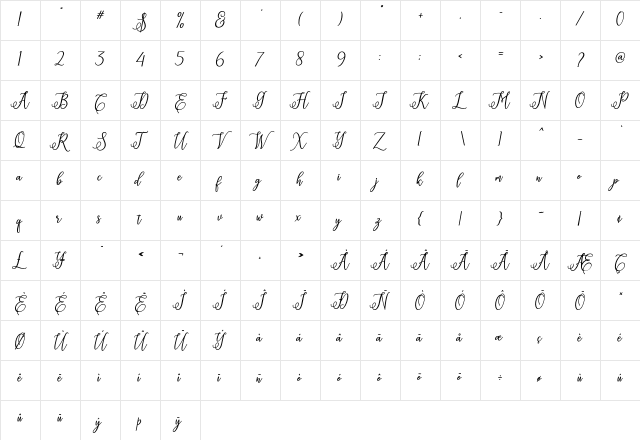
Eritta Slant Bold
Design Context for Eritta Slant Typeface
Eritta Slant is a composed and adaptable typeface that performs quietly and consistently across a wide range of design contexts. The heavy weight commands attention and anchors typographic hierarchies.